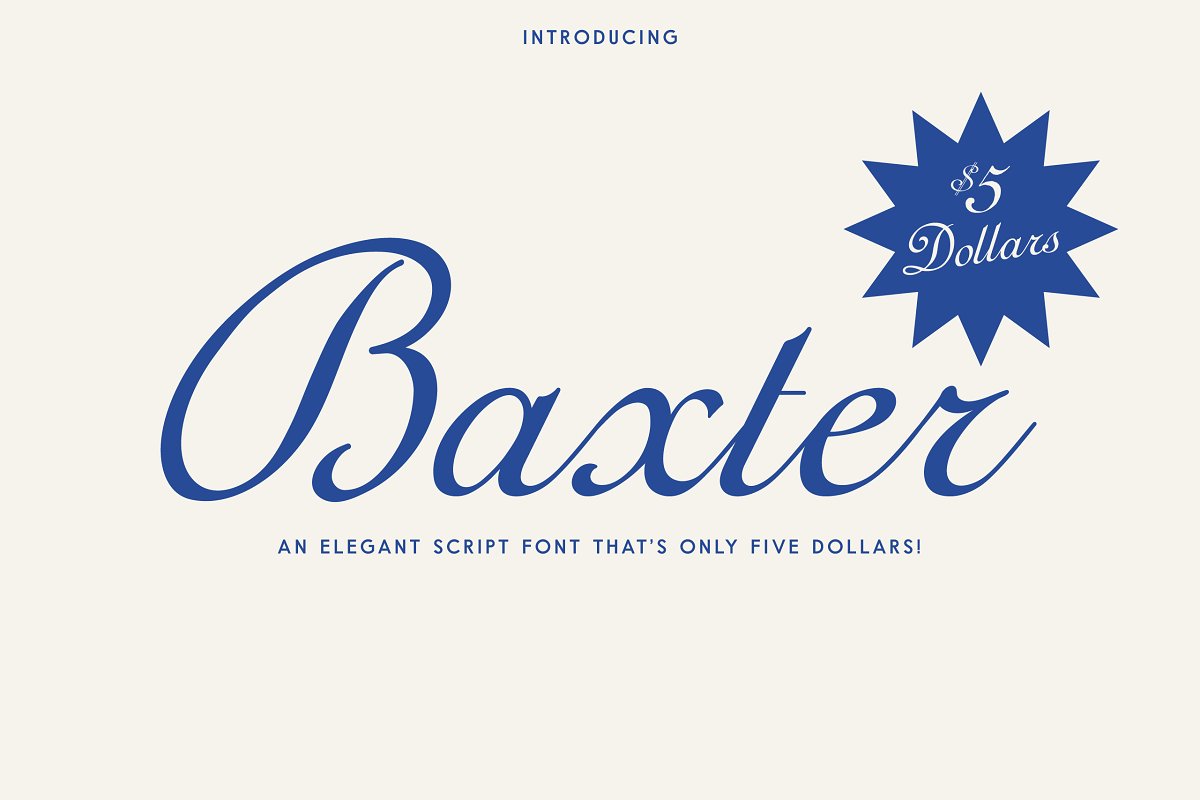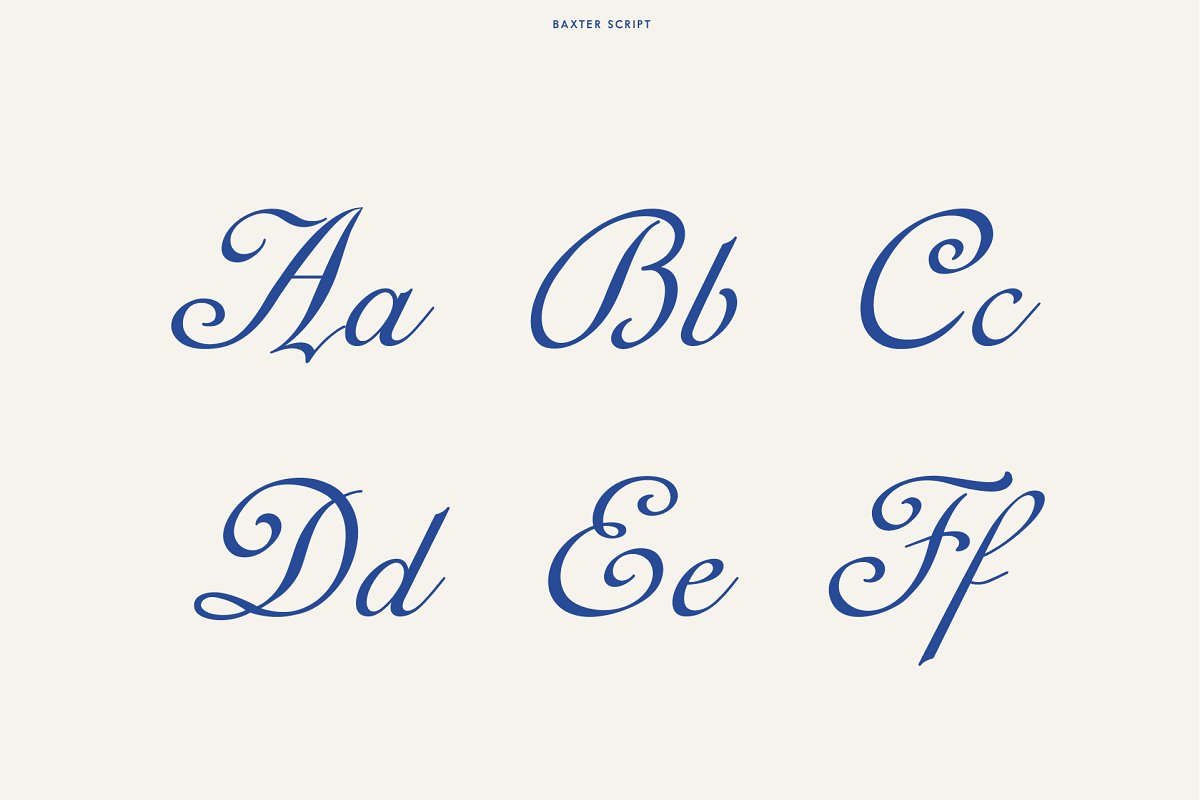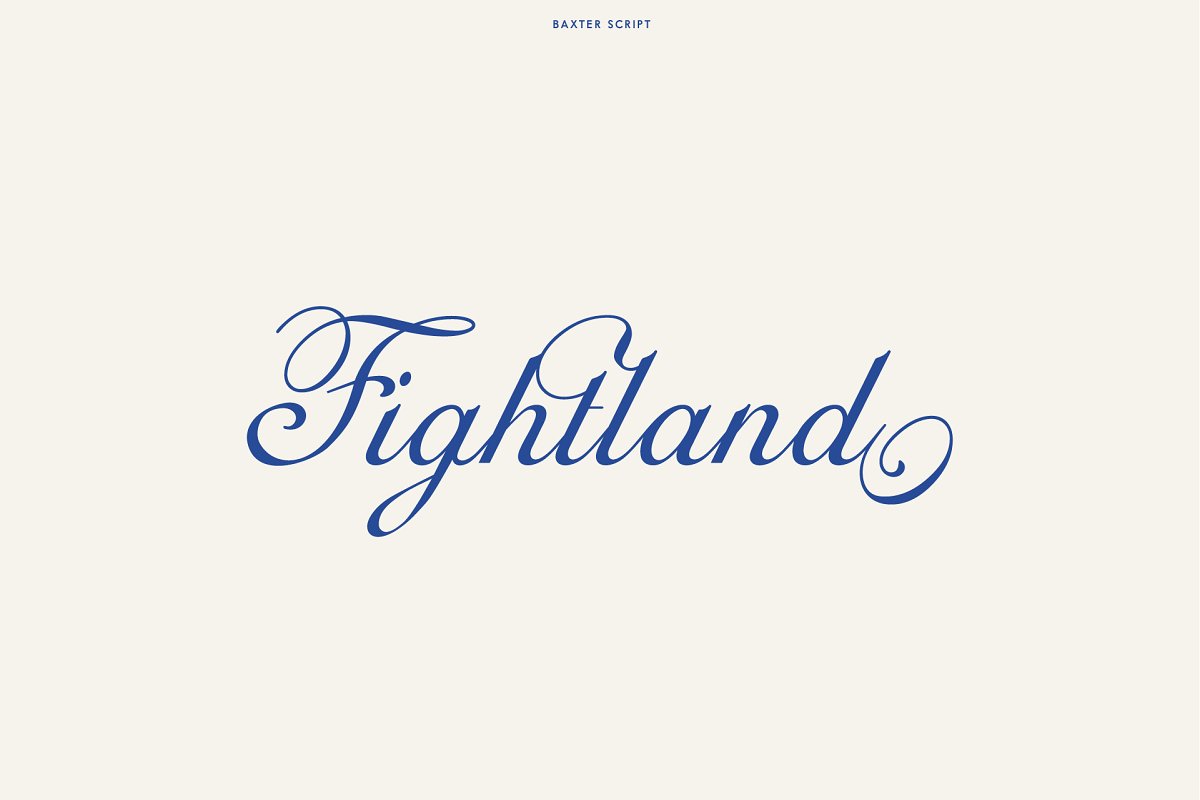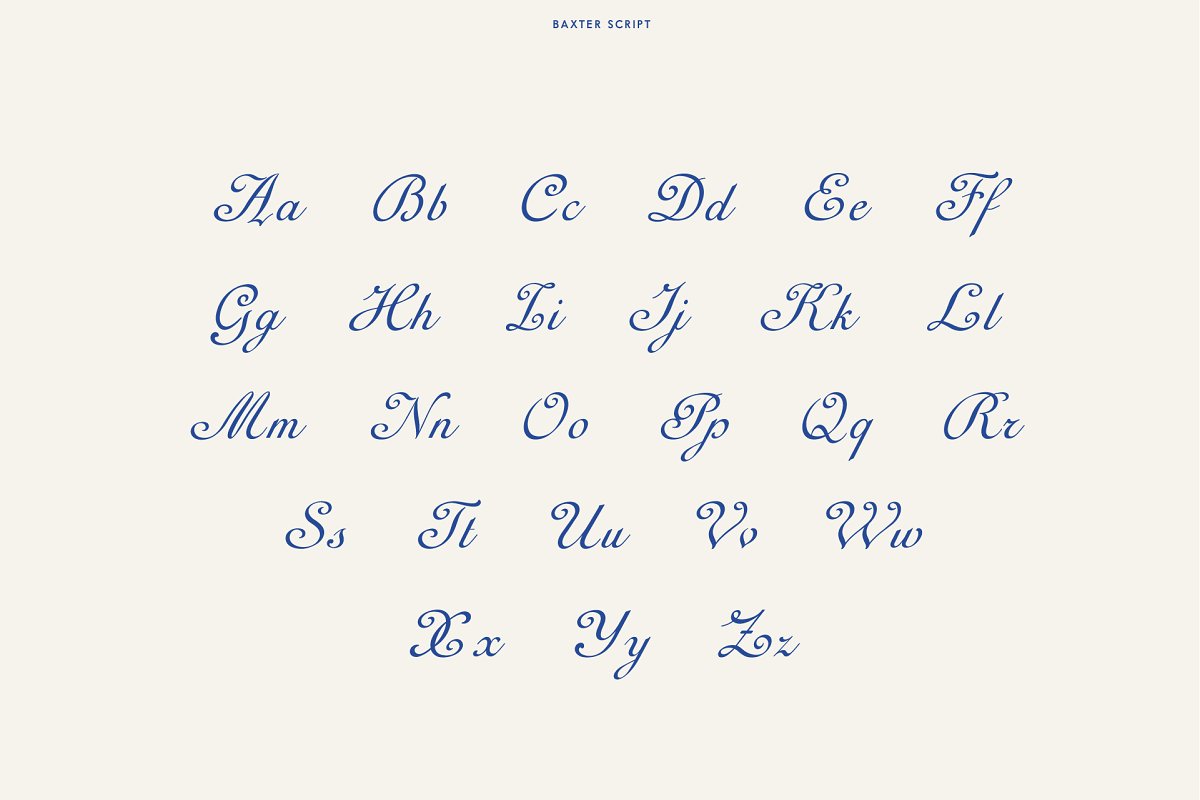
About the Baxter an Elegant Script Font
Introducing Baxter, Baxter is an elegant script typeface inspired by a vintage French type specimen I stumbled upon a while back, Thin to thick contrasting lines and elegant curves make Baxter the perfect font for logotypes and display purposes, Download now for only $5Includes:Upper and LowercaseNumerals (I’m currently updating these to mimic the smoothness of the Aa-Zz)Essential Punctuation (